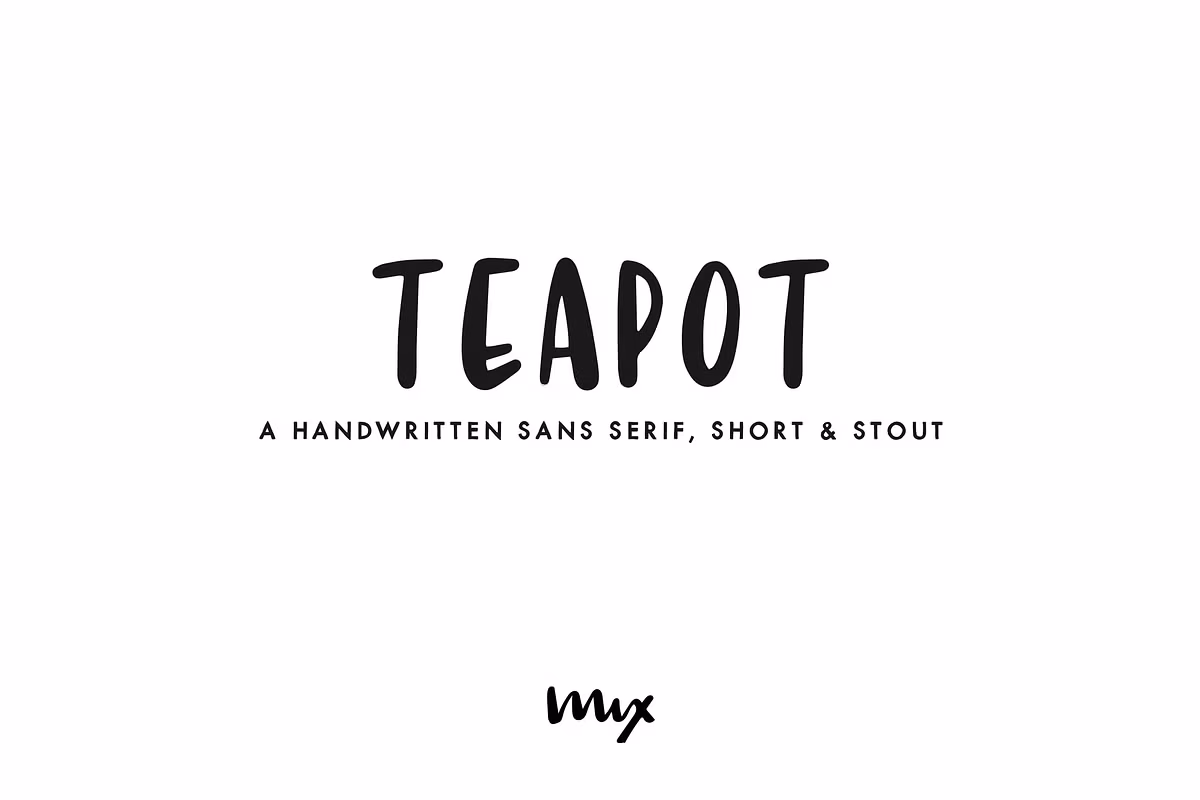
Teapot — A Handwritten Sans Serif Free Download
Teapot — A Handwritten Sans Serif Font Free Download
Brew up something beautiful with the Teapot — A Handwritten Sans Serif Font Free Download — a cozy and charming typeface that brings a handmade touch to your designs. With its casual letterforms and clean simplicity, Teapot is perfect for planners, journaling, packaging, lifestyle blogs, small business branding, and heartfelt social media posts.
Combining the approachability of handwriting with the clarity of sans serif style, this font feels fresh, friendly, and effortlessly stylish. Whether you're creating a wellness brand or a cozy café menu, Teapot adds warmth and personality to every word.